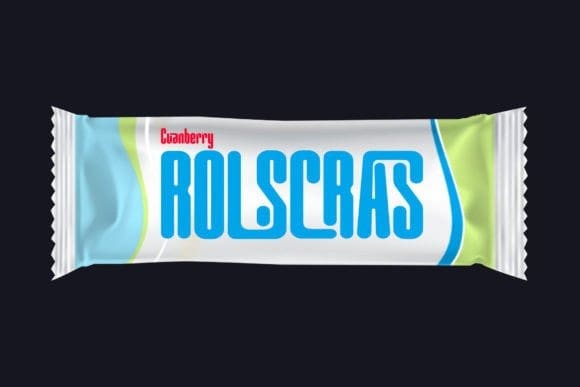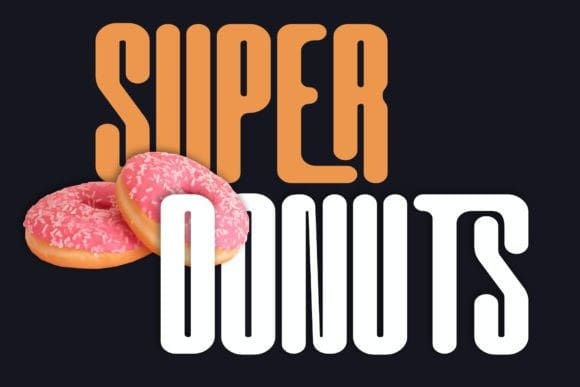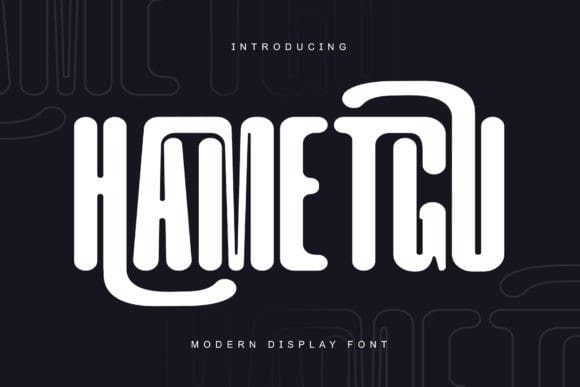
Hametgu Font
Hametgu Font, meticulously crafted to elevate your designs. This font boasts a wide range of alternate characters and ligatures, providing you with endless possibilities to create unique and captivating typography. Whether you’re designing a logo, branding materials, or a stylish poster, this font is sure to make your text stand out. Unlock your creativity and give your projects a distinctive edge with our versatile modern display font.